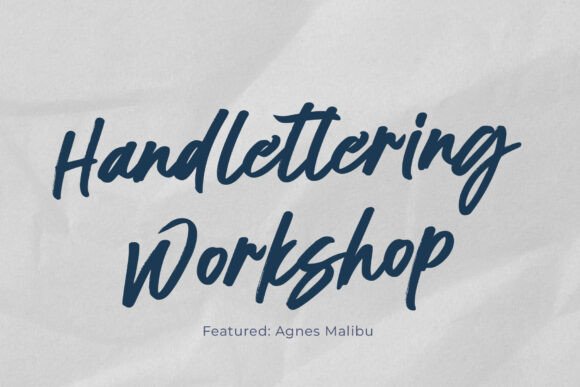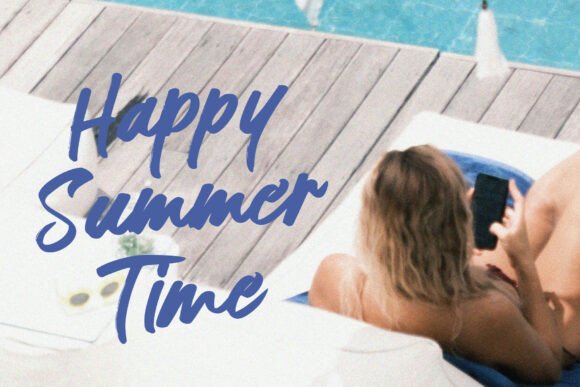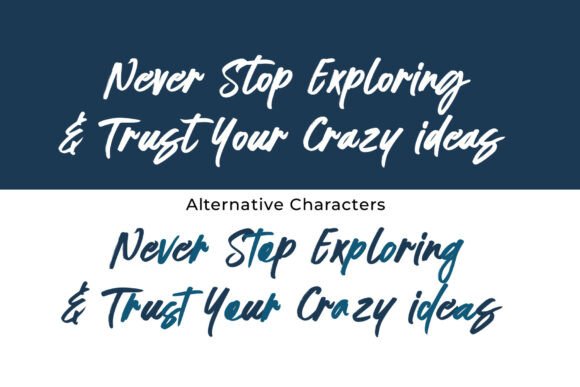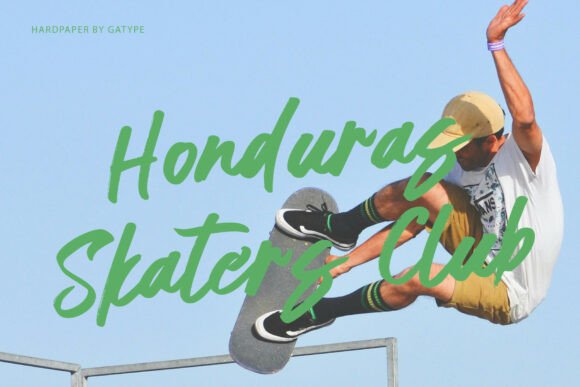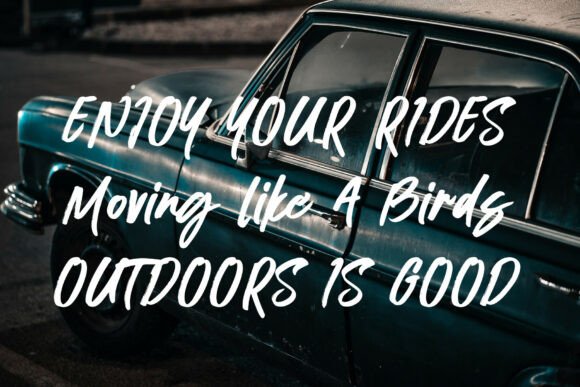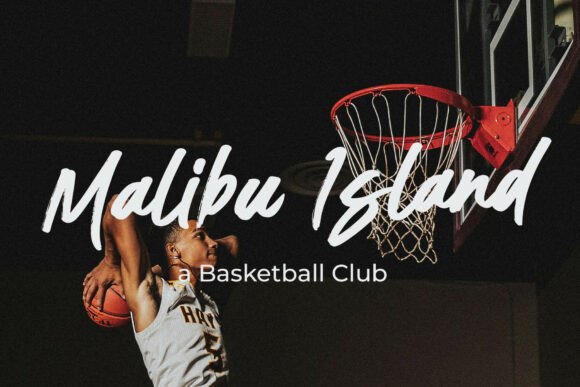
Introducing Hardpaper Font: The Ultimate Brush-Style Font for Creative Designs
Are you looking for a font that adds a personal touch to your designs? Do you want to convey a sense of creativity and informality? Look no further than Hardpaper Font, a brush-style font designed to mimic hand-painted strokes made with a brush or textured marker. In this article, we’ll explore the key characteristics of Hardpaper, its uses, and why it’s a great addition to your font collection.
What is Hardpaper Font?
Hardpaper is a unique font that replicates the imperfections of hand-painted strokes. Its casual, expressive, and slightly rough feel makes it perfect for designs that require a personal touch. The font’s strokes appear imperfect, as if they were made with quick, hand-drawn movements, giving it a relaxed and creative feel.
Key Characteristics of Hardpaper Font
So, what makes Hardpaper Font stand out? Here are its key characteristics:
• Imperfect Strokes: The strokes in Hardpaper appear imperfect, as if they were made with quick, hand-drawn movements.
• Variations in Pressure: The font exhibits variations in pressure similar to handwriting, giving it a natural and human feel.
• Casual and Expressive: Hardpaper has a casual, expressive, and slightly rough feel, making it perfect for informal designs.
Common Uses of Hardpaper Font
So, what can you use Hardpaper Font for? Here are some popular use cases:
• Posters and Music-Related Designs: Hardpaper Font is perfect for creating bold and eye-catching posters, music-related designs, and artwork.
• Creative Branding: The font is great for creative branding, including coffee shops, clothing, and streetwear designs.
• Social Media Quotes and Artwork: Use Hardpaper Font to create engaging social media quotes and artwork that stand out.
• Vintage or Handmade Designs: The font’s distressed look makes it perfect for vintage or handmade designs that require a unique touch.
Why Choose Hardpaper Font?
So, why choose Hardpaper Font over other fonts? Here are a few reasons:
• Unique and Creative: Hardpaper Font offers a unique and creative way to add a personal touch to your designs.
• Bold and Expressive: The font’s bold and expressive strokes make it perfect for designs that require a statement.
Hardpaper Font is a versatile and creative font that’s perfect for designers and crafters looking to add a personal touch to their designs. Its unique and bold strokes make it ideal for informal designs, such as posters, social media quotes, and creative branding. With its OTF and TTF file formats, you can easily use Hardpaper Font on various devices and software. We hope you enjoy using this font, and happy designing!